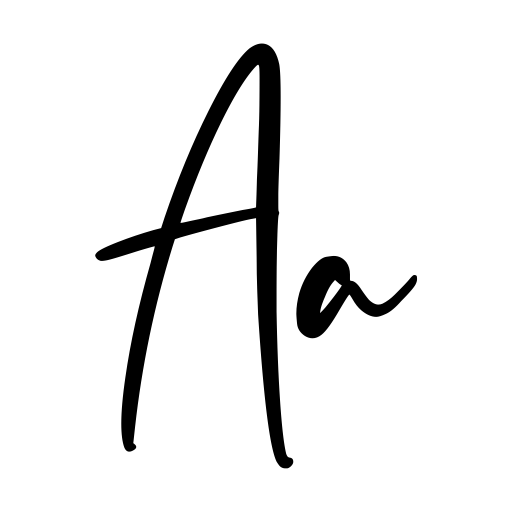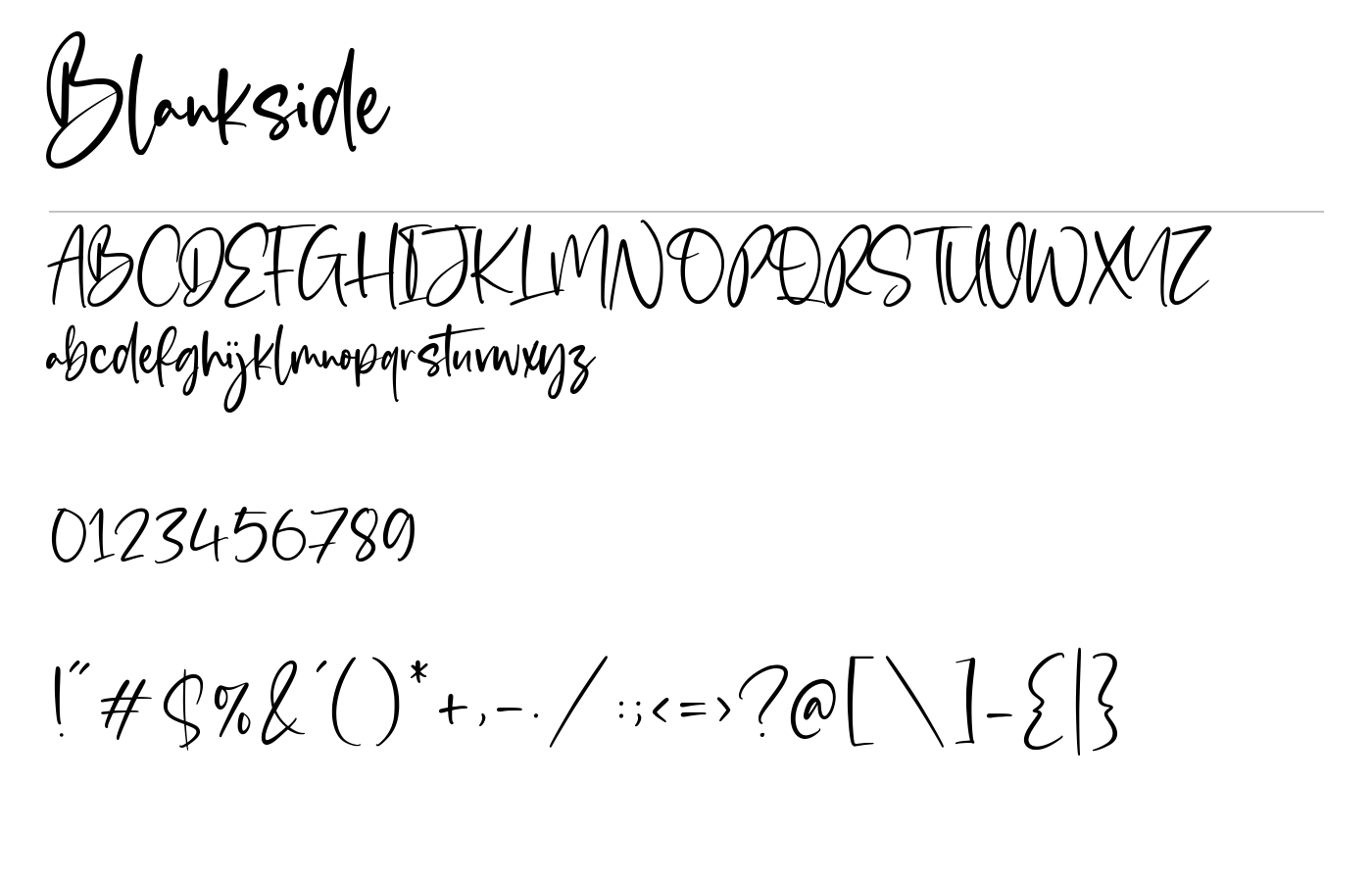
Blankside is a lively, handwritten script font with a casual and playful character, featuring tall, narrow letterforms and a natural, flowing stroke. Its irregular lines and distinct personality make it ideal for creative projects, branding, and informal designs that seek a personal, friendly touch. This font works best in headlines, logos, and social media graphics where a unique and expressive style is desired.
Blankside Font